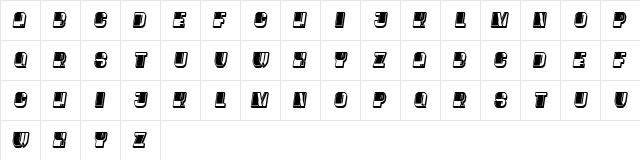
Oysters Abstract Inverted Italic
Design Context for Oysters Abstract Inverted Typeface
Oysters Abstract Inverted is a composed and adaptable typeface that performs quietly and consistently across a wide range of design contexts. The slanted form adds forward momentum and visual energy.